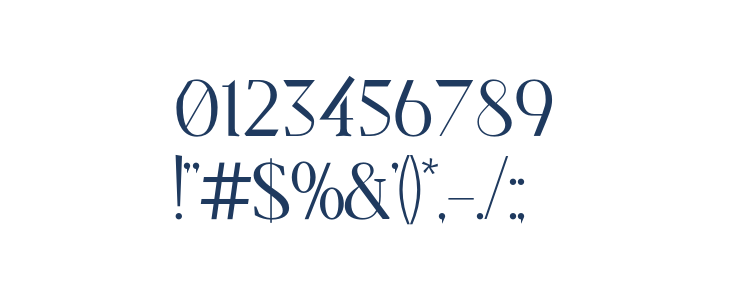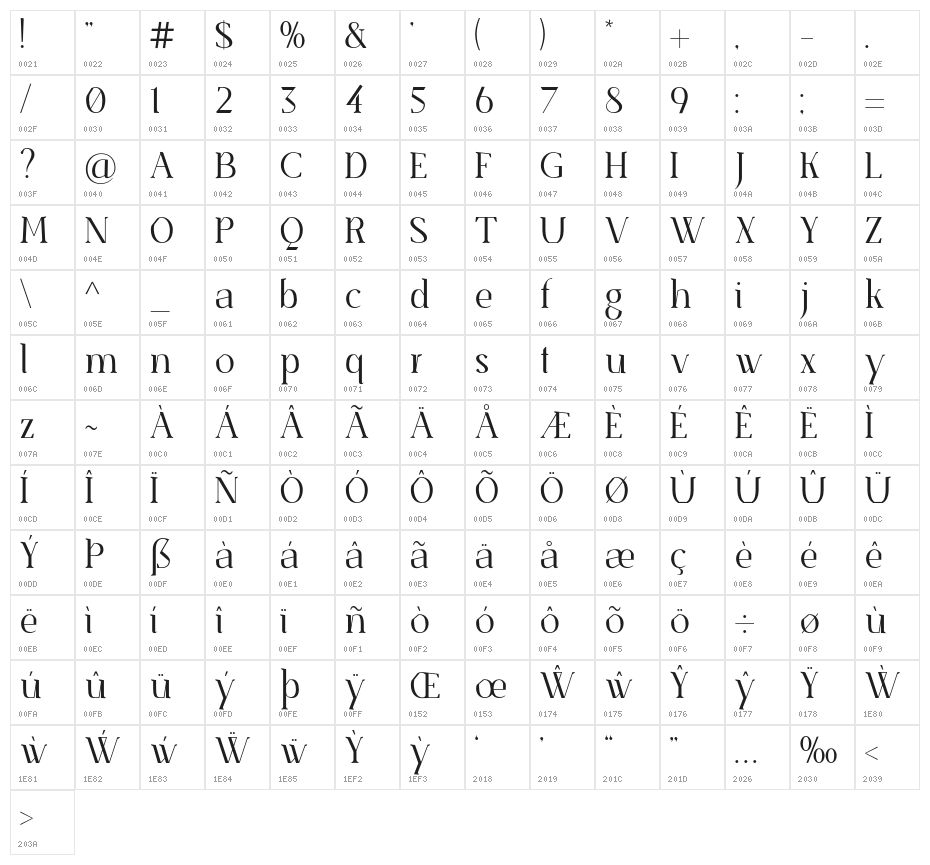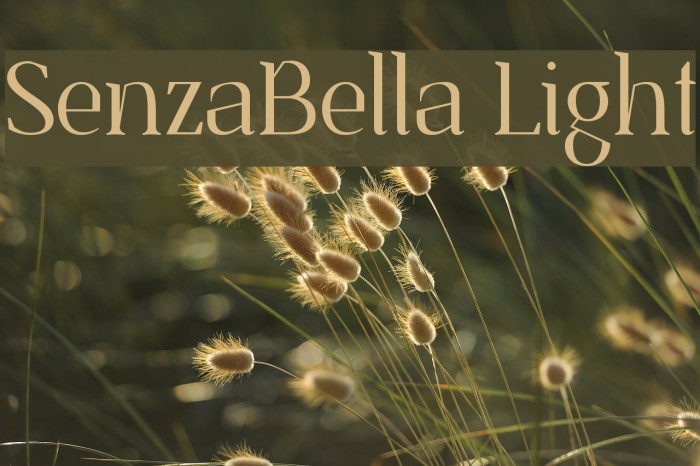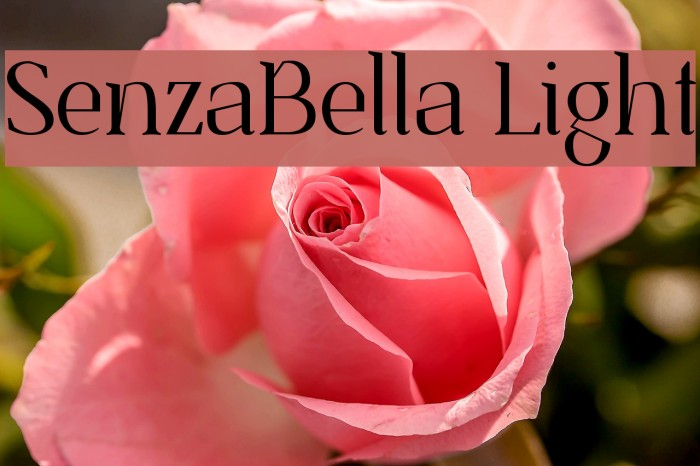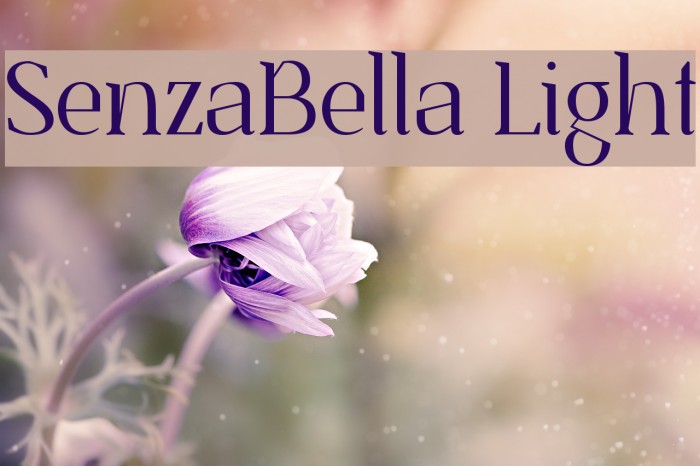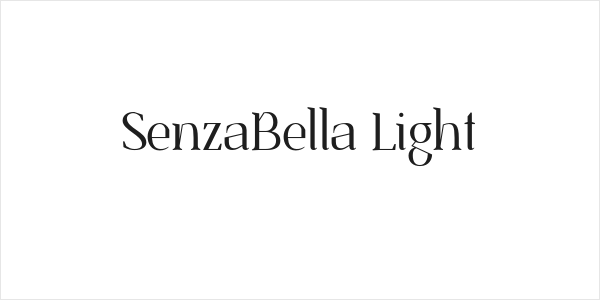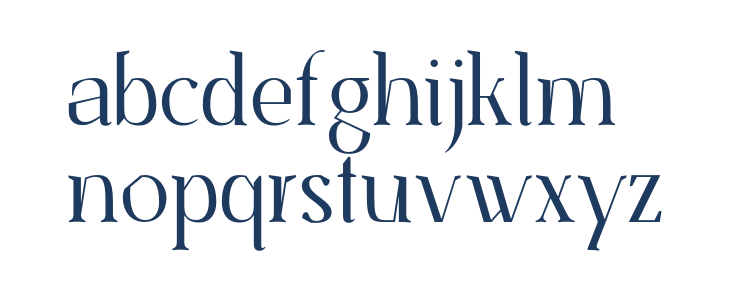
SenzaBella Light Font
SenzaBella Light Description
This font features a refined and elegant design with a modern twist, characterized by its thin, elongated strokes and subtle curves. The uppercase letters exhibit a sophisticated flair, with slightly exaggerated serifs that add a touch of drama. The lowercase letters maintain a consistent style, offering a harmonious blend of traditional and contemporary elements. The numerals are clean and easily readable, while the special characters are crafted with the same attention to detail, ensuring a cohesive appearance across all glyphs. This font's light weight and delicate structure make it ideal for projects that require a touch of elegance and sophistication.
| Proposed Projects | Ideal for wedding invitations, luxury branding, editorial design, and high-end product packaging. |